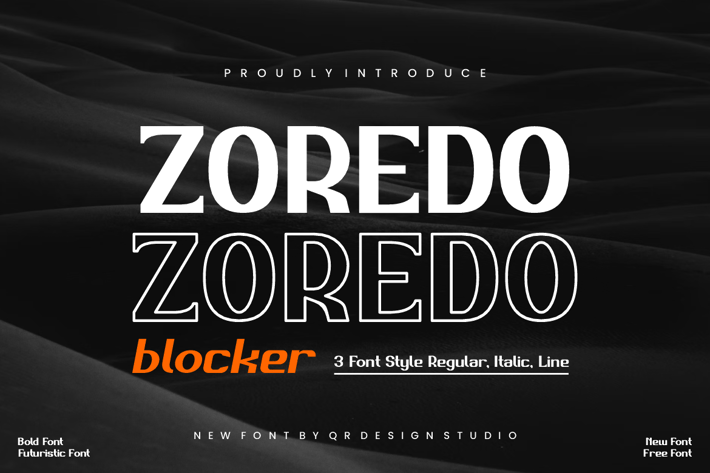
Zoredo Blocker - Futuristic Font
Zoredo Blocker - Futuristic Font is a bold and authentic display font.
The font is suitable for any branding project like logo, sport, and many more.